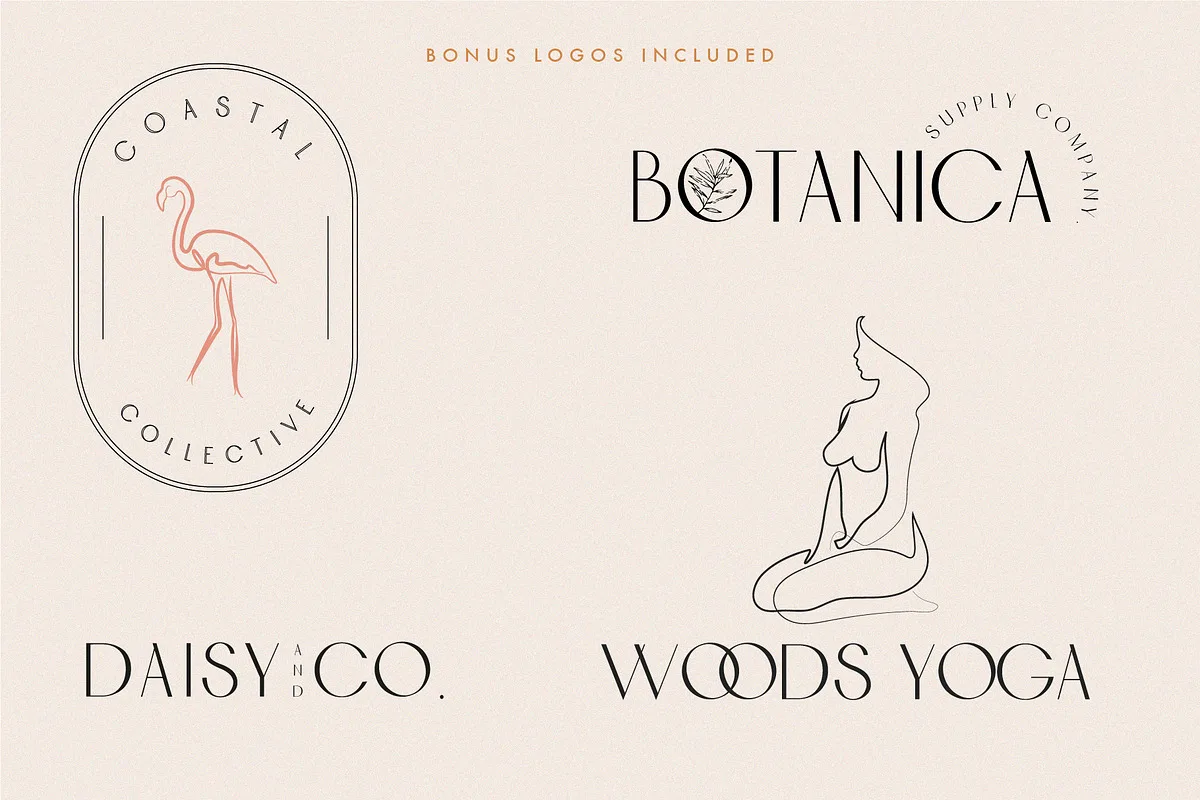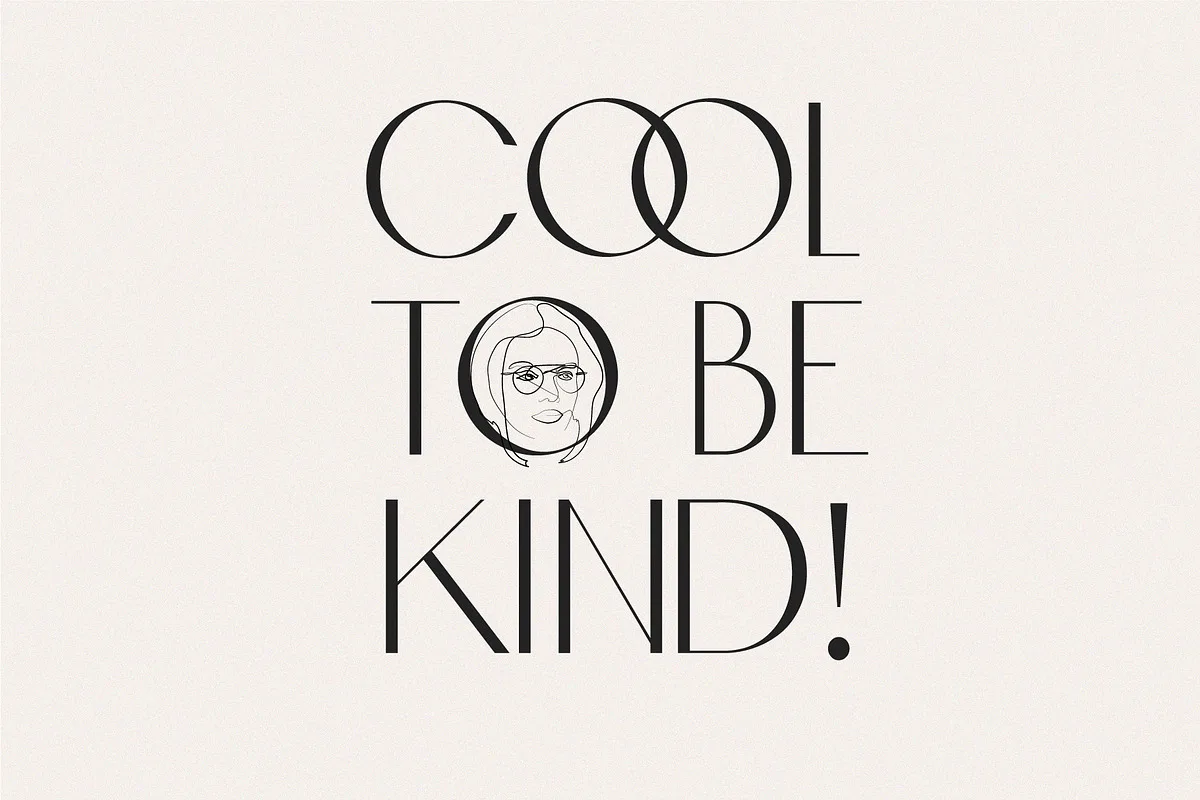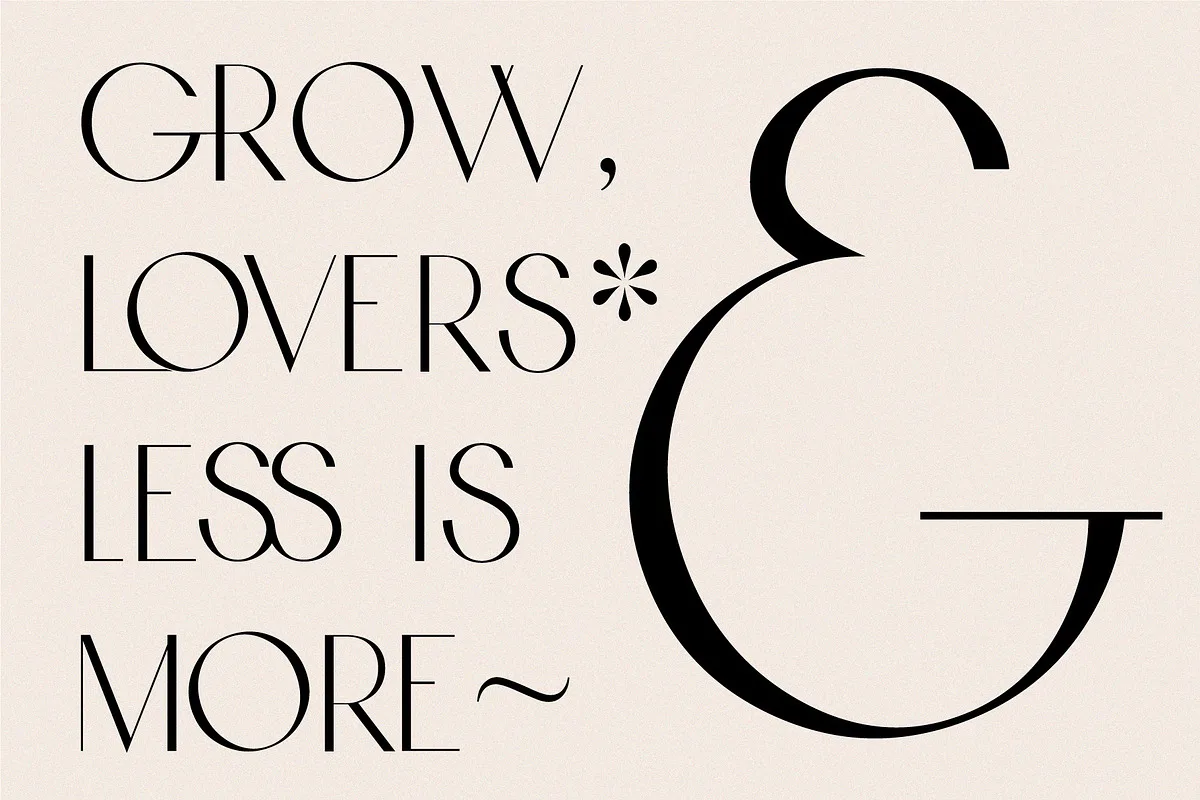
ART DECO MINIMALISM! This chic font takes the decoration out of deco but keeps those vintage curves. A perfect mix of new and old. This versatile font can be used for word-mark logos, mastheads, pull quotes & monograms. Plus 8 bonus feminine logos are thrown in!